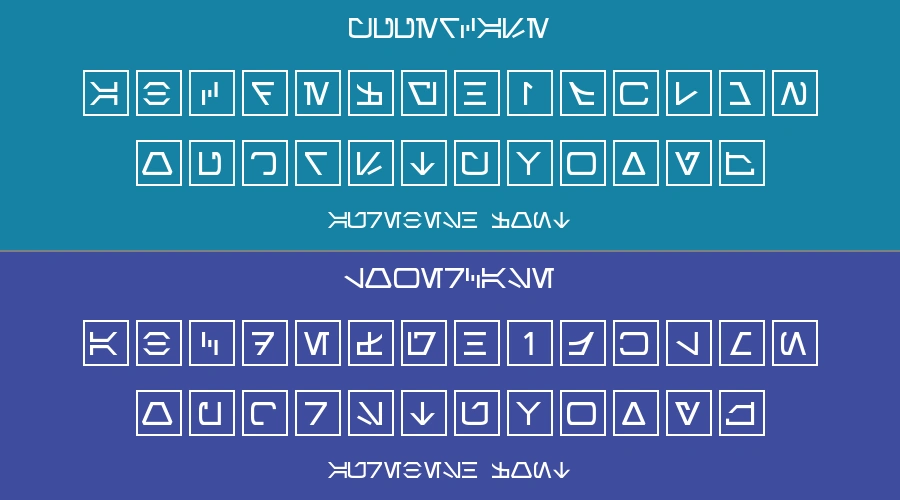
About Aurebesh Font
Aurebesh Font represents a sophisticated approach to type design, balancing width contrast with versatility. Perfect for product naming, this font family showcases impressive versatility and visual authority throughout its character set. Designers appreciate its versatility and reliability.
Designers will appreciate nuanced touches including harmonic curves and subscript/superscript, adding sophistication to any project. These features become apparent in academic theses, where versatility matters most. The careful treatment of corner treatment and historical reference ensures optimal performance.